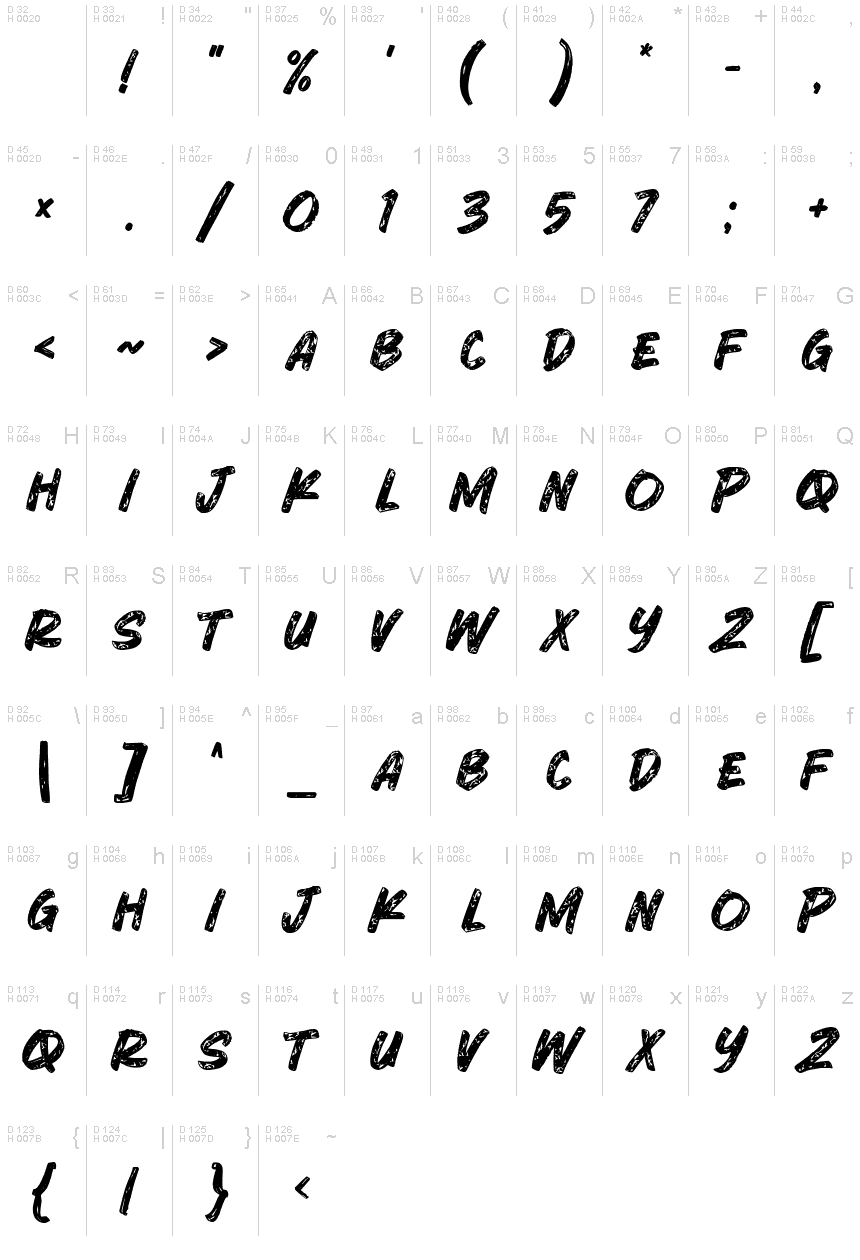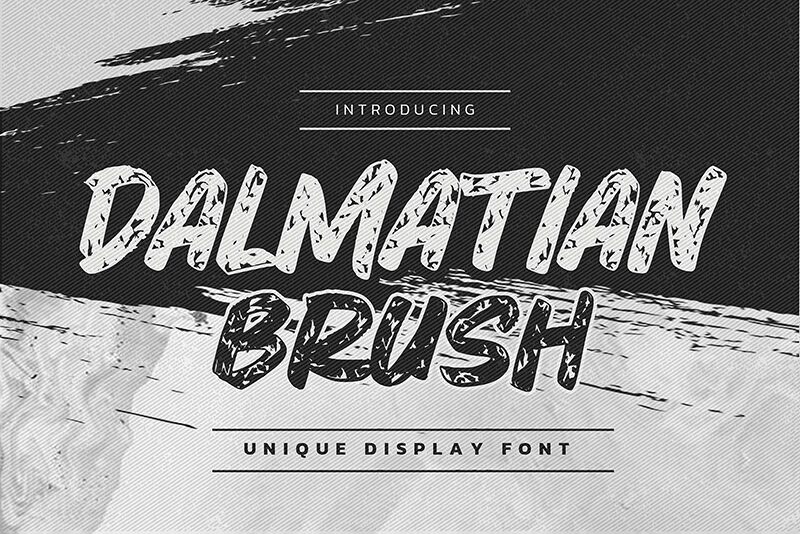
Dalmatian Brush
Dalmatian Brush emerges as a distinctive display font that effortlessly captures the spontaneity and fluidity of brush strokes. Crafted by Gassstype, this semi-bold font parades a modern style infused with creative movement, akin to the lively spots of its namesake. Tailored for designers seeking an authentic touch, Dalmatian Brush excels in transforming logos, posters, and various design projects with its unique and contemporary flair.
The font's casual quick-written appearance makes it ideal for labels, quotes, branding endeavors, and more. Its versatility extends to digital realms such as websites and photography overlays as well as traditional mediums like greeting cards and scrapbooking. Leverage the natural charm of Dalmatian Brush to infuse your work with a singularly authentic voice that stands out in a crowded visual landscape.